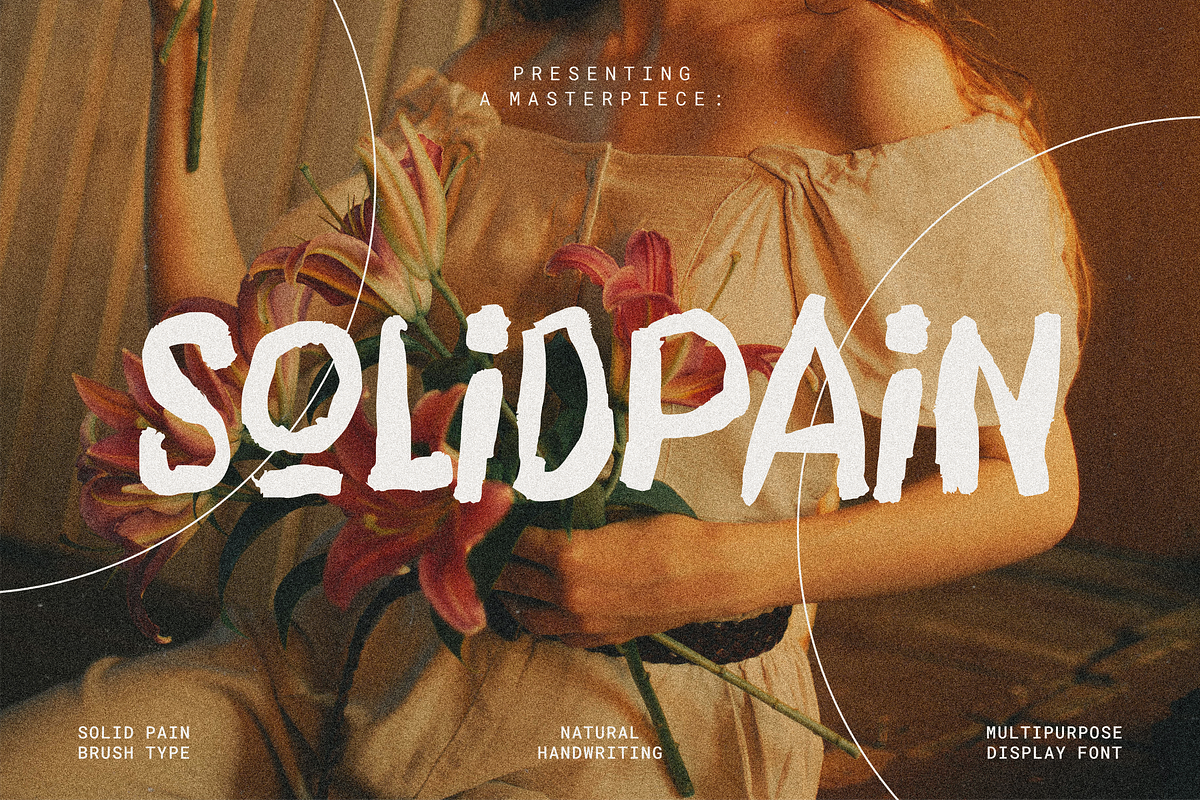
You must purchase this font for commercial use. However, you can download Solidpain Handwriting Brush Font Free Download for testing purposes. Solidpain is a dynamic and expressive handwritten brush font, designed to bring an artistic, raw feel to your designs. Its bold, fluid strokes make it perfect for creating eye-catching logos, posters, social media graphics, greeting cards, and any project that needs a creative, hand-drawn aesthetic.
With its unique brush texture and fluid lettering, Solidpain adds energy and personality to your typography. Whether you're working on an artistic brand, an event poster, or a personal project, this font will infuse your designs with a playful and creative vibe.